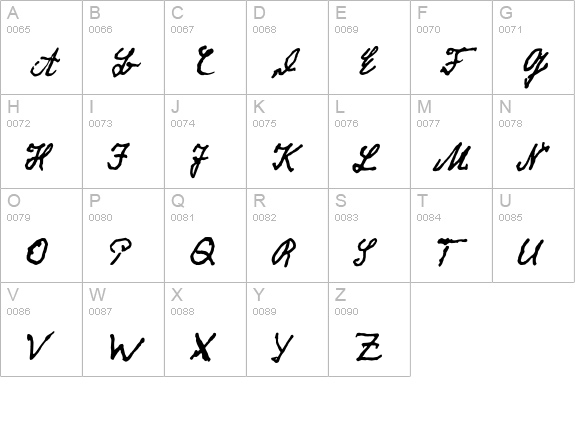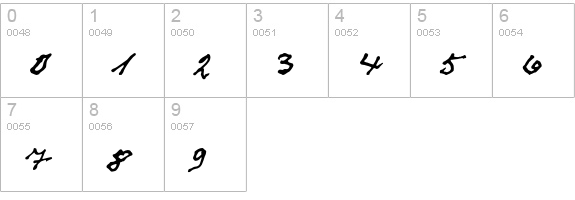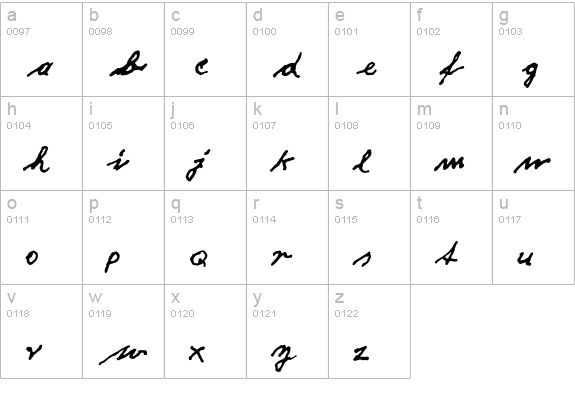
FritzDittertEF-Regular is the standard, neutral variant in the FritzDittertEF typeface family \xE2\x80\x94 well suited to general body text, paragraphs, and standard typographic work.
FritzDittertEF-Regular is a modern and stylish font that exudes sophistication and elegance. With its clean lines and versatile design, this font is perfect for a wide range of projects, from branding to advertising to editorial design. The sleek and contemporary look of FritzDittertEF-Regular makes it stand out from the crowd and adds a touch of class to any design. What's even better is that FritzDittertEF-Regular is available for free download at FontsMarket.com. This means that you can easily access this high-quality font without having to break the bank. Whether you're a professional designer or a hobbyist looking to elevate your projects, FritzDittertEF-Regular is a fantastic choice that won't cost you a dime. Download it today and see the difference it can make in your designs!